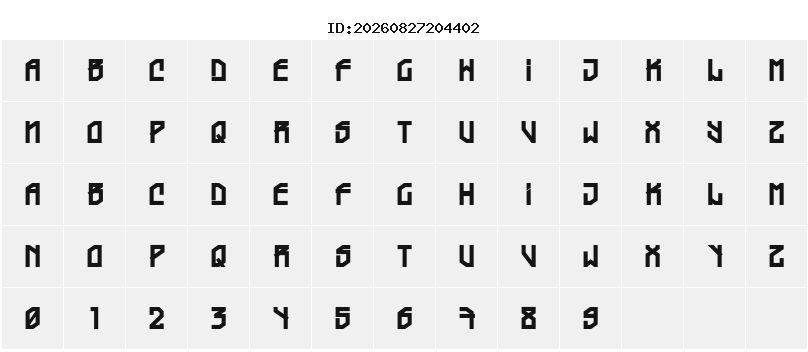
• Font Name: Typograff
• Designer: Rogério Oliveira
About Typograff.otf
Typograff.otf is a modern, elegant sans-serif font designed for ultimate readability and visual harmony. Perfect for branding, headlines, web design, and print materials.